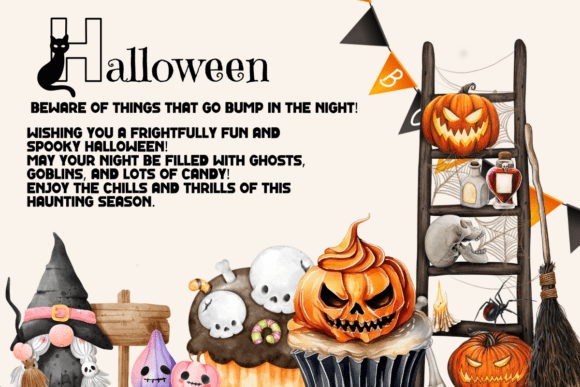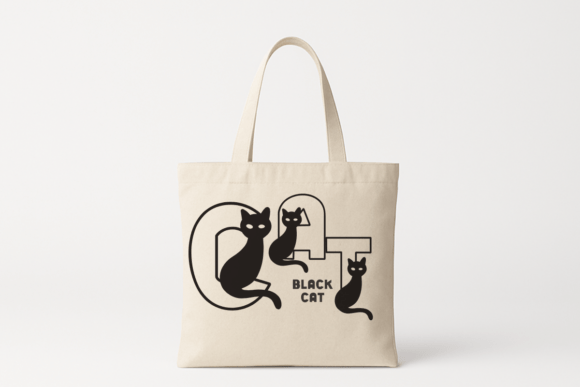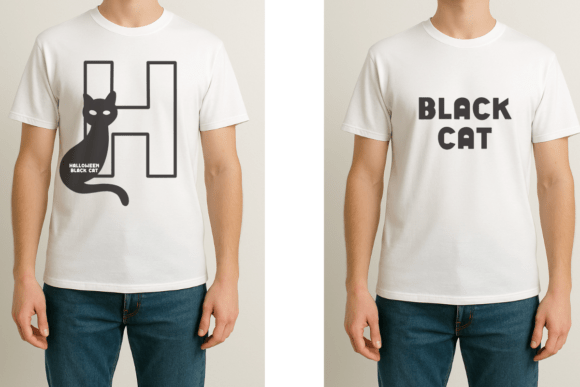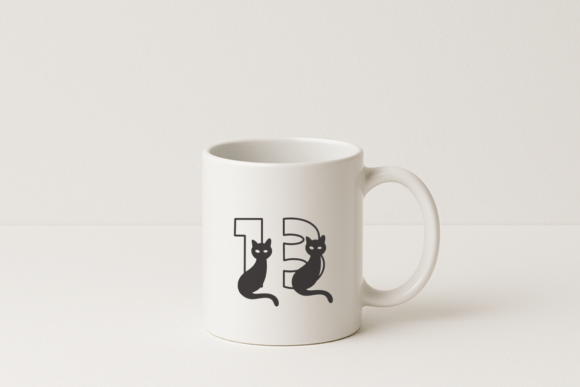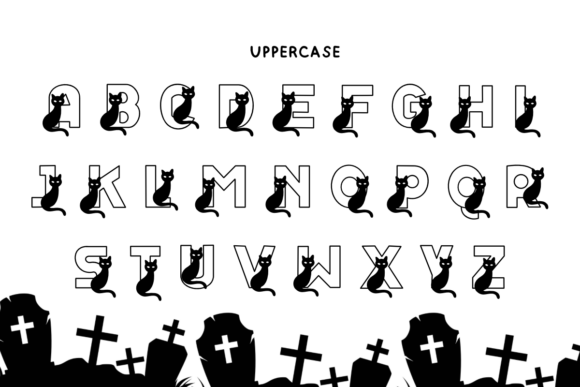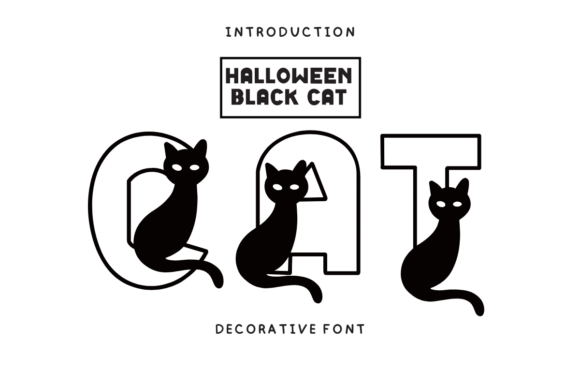
Unleash the Magic of Halloween Black Cat Font: A Versatile Decorative Font for All Seasons
Are you a designer, crafter, or DIY enthusiast looking for a unique and visually intriguing font to elevate your creative projects? Look no further than the Halloween Black Cat Font! This decorative font is perfect for adding a touch of personality to your designs, from personal projects like note-taking and diary entries to professional applications such as greeting cards, banners, and social media posts.
The Versatility of Halloween Black Cat Font
At first glance, the name “Halloween Black Cat” might lead you to believe that this font is only suitable for seasonal designs. However, its versatility and timeless charm make it an excellent choice for a wide range of design applications. Whether you’re creating:
- Dynamic banners that grab attention
- Engaging content that resonates with your audience
- Eye-catching mug designs that make perfect gifts
- Bold apparel graphics that showcase your style
- Elegant stationery that adds a touch of sophistication
- Captivating social media posts that drive engagement
The Halloween Black Cat font is the perfect addition to your design toolkit. Its unique and decorative style adds a flair of creativity to any project, making it stand out from the crowd.
Perfect for Personal Projects
For those who love to jot down notes, write in a diary, or create handmade cards, the Halloween Black Cat font is an excellent choice. Add a touch of whimsy and personality to your:
- Journal entries
- To-do lists
- Letter writing
- DIY crafts
This font is sure to make your personal projects more enjoyable and visually appealing.
Elevate Your Greeting Card Creations
Greeting cards are a great way to show you care, and with the Halloween Black Cat font, you can create unique and eye-catching designs that will leave a lasting impression. From:
- Birthday cards
- Holiday cards
- Get-well cards
- Thank-you cards
This font adds a touch of elegance and sophistication to your designs, making them perfect for any occasion.
Tips for Using Halloween Black Cat Font
To get the most out of this versatile font, here are some tips:
- Pair the Halloween Black Cat font with other fonts to create a unique and visually appealing combination
- Use the font to create eye-catching headings and titles that grab attention
- Don’t be afraid to get creative and try out new and innovative design ideas
| Font Name | Halloween Black Cat Font |
| Author | Bee piyanuch |
In conclusion, the Halloween Black Cat font is a versatile and decorative font that is perfect for designers, crafters, and DIY enthusiasts. Its unique and visually intriguing style makes it an excellent choice for a wide range of design applications, from personal projects to professional designs. So why wait? Unleash the magic of Halloween Black Cat font and bring your creative visions to life!
Whether you’re a seasoned designer or just starting out, this font is sure to inspire and elevate your designs. So go ahead, get creative, and show the world what you can do with the Halloween Black Cat font!